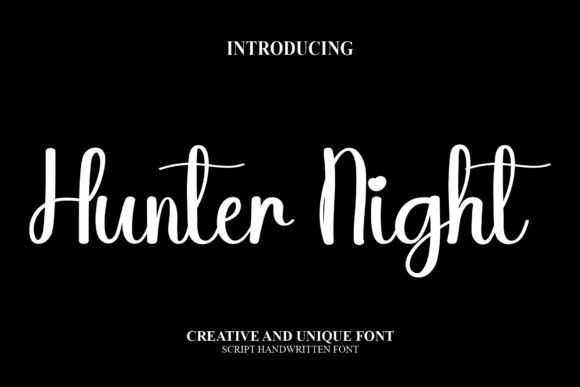
Behold Hunter Night Font, the modern calligraphy script that captivates hearts with its elegant poise and undeniable charm. This exquisite typeface, skillfully crafted by the renowned Strongkeng Old, invites you to embark on a journey of creativity and self-expression.
Step into a world where words dance with grace, flowing effortlessly from your fingertips. Hunter Night Font is the ultimate choice for crafting logos that speak volumes, leaving an indelible mark on the minds of your audience. Its timeless beauty transcends trends, ensuring that your visual identity remains relevant and impactful for years to come.
With its delicate strokes and enchanting curves, Hunter Night Font breathes life into your designs, adding a touch of sophistication and elegance. Let your imagination soar as you create logos that captivate and inspire, leaving a lasting impression that sets you apart from the rest.
Whether you're a seasoned designer or just starting your creative journey, Hunter Night Font is your perfect companion. Unleash your inner artist and let your creativity flow as you transform ordinary words into captivating works of art. From product packaging to wedding invitations, social media posts to advertisements, Hunter Night Font adds a touch of magic to every project you undertake.
It's not just a font; it's an experience that ignites your passion and fuels your imagination. Embrace the power of Hunter Night Font and unlock a world of endless possibilities. Let your designs speak louder than words, leaving an unforgettable mark on the hearts and minds of your audience.